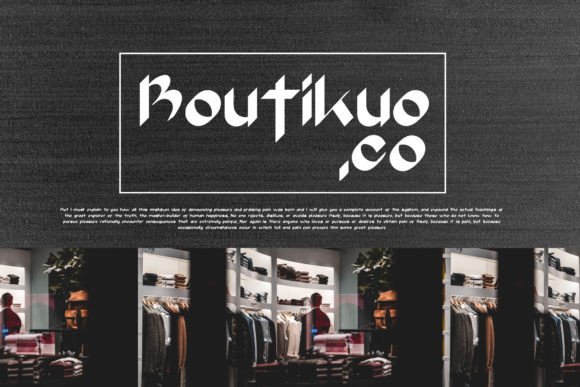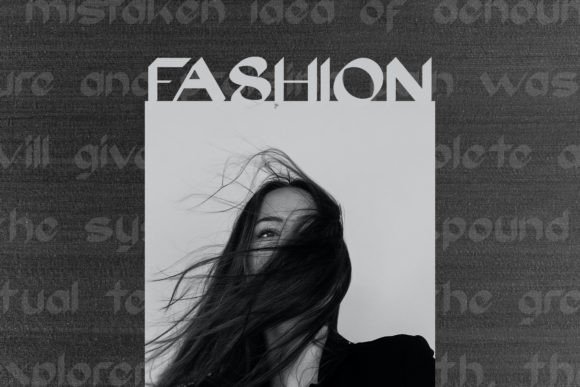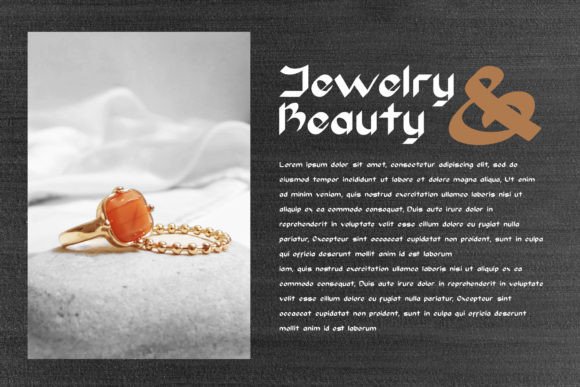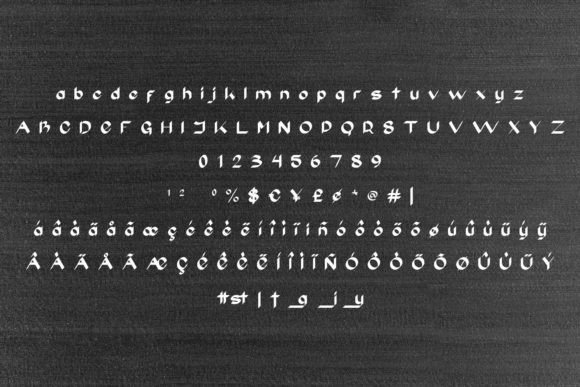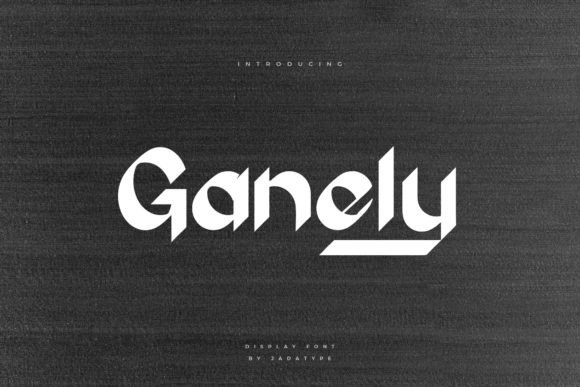
Discover the Charm of Ganely Font: Your New Go-To for Friendly Designs
In the world of typography, fonts play a crucial role in conveying emotions and setting the tone for any design project. Whether you’re a professional designer, a crafter, or simply someone who loves to dabble in digital design, finding the right font can make all the difference. This is where Ganely Font comes into play—a childish, easy-to-read display font that exudes impeccable friendliness. In this article, we’ll explore the characteristics of Ganely Font, its uses, and why it has the potential to become your favorite go-to font for various occasions.
What is Ganely Font?
Ganely Font is a display font designed to capture the essence of childhood innocence and friendliness. Its childish appeal makes it perfect for projects aimed at a younger audience or for anyone looking to add a touch of playfulness to their designs. The font’s ease of readability is one of its standout features, ensuring that your message is conveyed clearly and effectively, whether it’s used for titles, headings, or short paragraphs.
Key Features of Ganely Font
• Childish Appeal: Ganely Font’s design is inspired by the charm of childhood, making it perfect for projects that require a youthful and playful vibe.
• Easy to Read: Despite its playful nature, Ganely Font maintains a high level of readability, making it suitable for both digital and print designs.
• Versatility: This font can be used across a wide range of projects, from crafts and digital designs to presentations and greeting cards.
• Friendliness: The font conveys a sense of warmth and friendliness, making it ideal for designs that aim to connect with the audience on a personal level.
Uses of Ganely Font
Ganely Font’s versatility is one of its most appealing qualities. Here are some of the many ways you can use this font:
1. Crafts
For crafters, Ganely Font can add a personal touch to handmade projects. Whether you’re creating DIY signs, decorating journals, or making personalized gifts, this font can help you achieve a cohesive and charming look.
2. Digital Design
In digital design, fonts play a crucial role in the overall aesthetic and user experience. Ganely Font can be used in social media graphics, blog headers, and website designs to create a friendly and approachable atmosphere.
3. Presentations
For presentations, especially those aimed at a younger audience or requiring a more casual tone, Ganely Font can make your slides more engaging and visually appealing.
4. Greeting Cards
Creating greeting cards can be a fun and creative project. Ganely Font can help you add a personal and heartfelt touch to your cards, making them more special for the recipient.
Why Ganely Font Should Be Your Go-To
Choosing a font for your project can be overwhelming, given the numerous options available. However, Ganely Font stands out for several reasons:
• Universal Appeal: Its friendly and childish appeal makes it universally liked and applicable across various projects.
• Emotional Connection: The font helps create an emotional connection with the audience, making your designs more relatable and engaging.
• Easy to Pair: Ganely Font can be easily paired with other fonts to create a unique and harmonious design.
Font Name Ganely Font
Author jadatype
Ganely Font is more than just a display font; it’s a tool that can bring your designs to life with its childish charm and friendly appeal. Whether you’re working on crafts, digital designs, presentations, or greeting cards, Ganely Font has the potential to become your new go-to font. Its ease of readability, versatility, and ability to convey friendliness make it an excellent choice for designers and crafters alike. So, why not give Ganely Font a try and see how it can transform your designs?
With Ganely Font, you’re not just choosing a font; you’re choosing a way to communicate warmth, friendliness, and approachability. Make your designs more engaging, more personal, and more memorable with Ganely Font. It’s time to explore the possibilities and make Ganely Font your new favorite go-to for all your design needs.